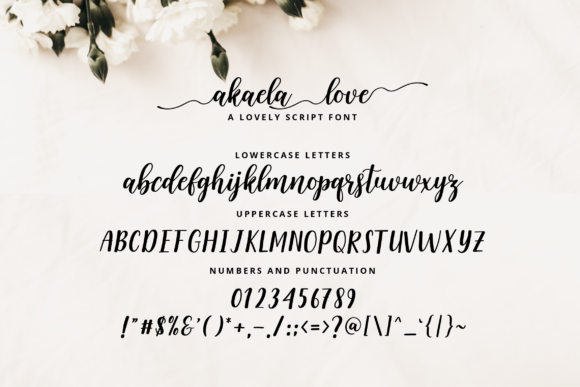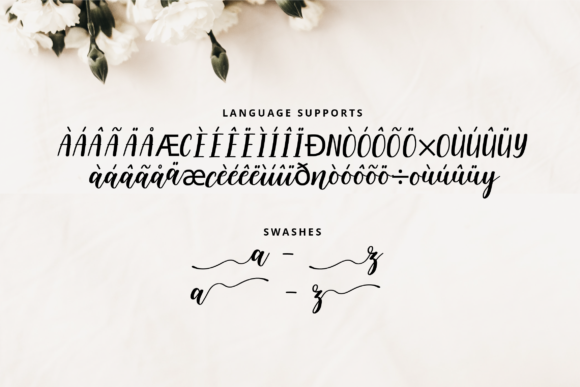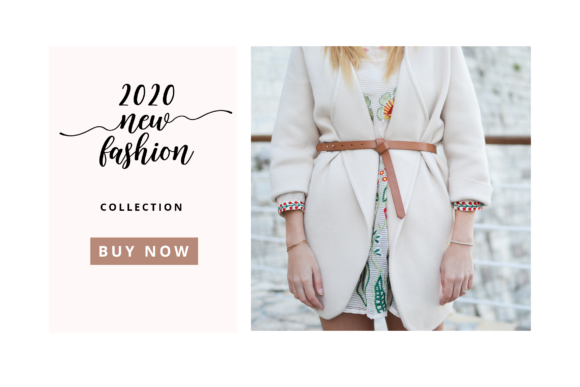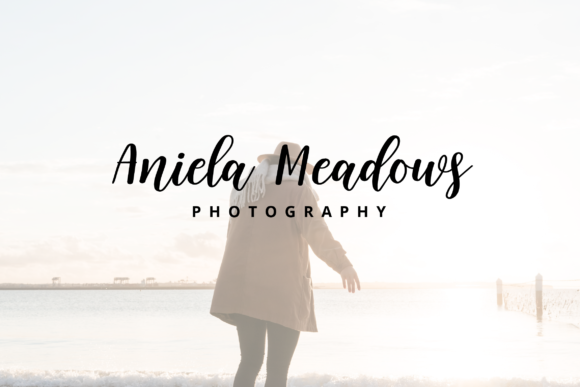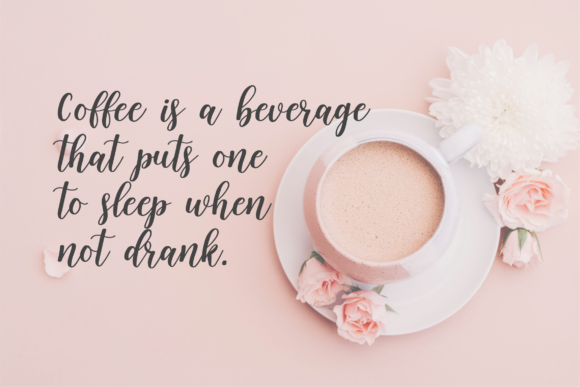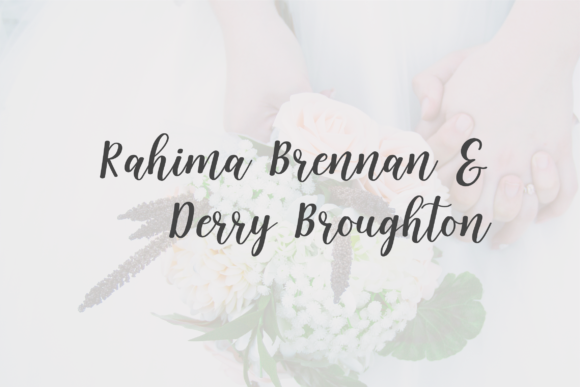
Love at First Sight: Discovering the Akalea Love Font
As creatives, we’ve all been there – staring at a blank page, trying to bring an idea to life, and waiting for the perfect spark to strike. For me, that moment came when I stumbled upon the Akalea Love Font. Its soft, handwritten charm instantly captured my heart, and I knew I had to learn more.
The Akalea Love Font is a sweet and delicate hand-lettered font designed to evoke feelings of love and warmth. Whether you’re crafting wedding invitations, designing beautiful stationery, or creating eye-catching social media posts, this font is the perfect companion for any creative project. For designers, the Akalea Love Font offers a unique and authentic feel that’s hard to find in modern fonts.
Akalea Love Font Key Features
- Font Family: Akalea Love, a unique and elegant script font designed for love and romance themes.
- Font Size: 1,034 glyphs, providing an extensive character set for creative expression.
- Unique Characteristics: Akalea Love Font features flowing connections, swashes, and ligatures, making it perfect for romantic and elegant designs, such as wedding invitations, love letters, and Valentine’s Day cards.
- Font Weight: Akalea Love Font comes in 1 weight, providing a consistent and harmonious look across all designs.
Akalea Love Font Review
I recently had the chance to work with the Akalea Love Font, and I must say it’s a unique and beautiful addition to any design project. ✨ The font’s cursive script is elegant and refined, making it perfect for wedding invitations, love letters, or any other romantic theme. ✨ The font’s subtle nuances in letterform and stroke variation add a touch of whimsy and personality to your text.
- Unique and beautiful cursive script
- Elegant and refined design
- Perfect for romantic themes and wedding invitations
- May be difficult to read at smaller font sizes
- Limited character set (only supports Latin script)
- Not suitable for large blocks of text
Overall, I would say that the Akalea Love Font is a great addition to any designer’s toolkit. While it may have some limitations, its unique design and beauty make it a great choice for specific projects. With a little care and consideration, you can use this font to create truly stunning designs.
Tips for Getting the Most Out of Akalea Love Font
To get the most out of Akalea Love Font, use it for romantic and whimsical designs, such as wedding invitations, Valentine’s Day cards, and baby announcements. You can also use it to add a touch of elegance and sophistication to your designs.
Akalea Love Font is commonly used for:
– Valentine’s Day cards and gifts
– Baby announcements and nursery decor
– Romantic and whimsical designs for social
Alternatives to Akalea Love Font
Great Vibes Font is a beautiful, elegant script font perfect for creating a romantic and whimsical atmosphere. It is ideal for wedding invitations, greeting cards, and other designs that require a touch of sophistication and elegance. Great Vibes Font has a more refined and delicate feel compared to Akalea Love Font, making it suitable for formal events and high-end designs.
Carolyna Pro Font is a modern and stylish script font that works well for a variety of designs, from elegant invitations to trendy branding. It has a more dynamic and playful feel compared to Akalea Love Font, making it suitable for younger audiences and edgier designs. Carolyna Pro Font is ideal for fashion, beauty, and lifestyle brands.